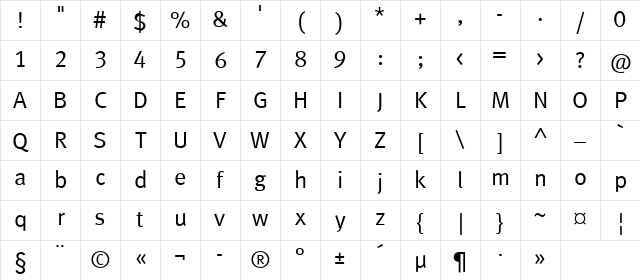
MetaNormalLFC Regular
Design Context for MetaNormalLFC
MetaNormalLFC is a composed and adaptable typeface that performs quietly and consistently across a wide range of design contexts.